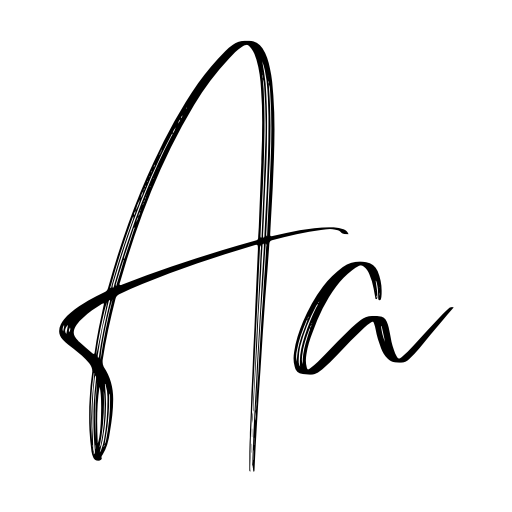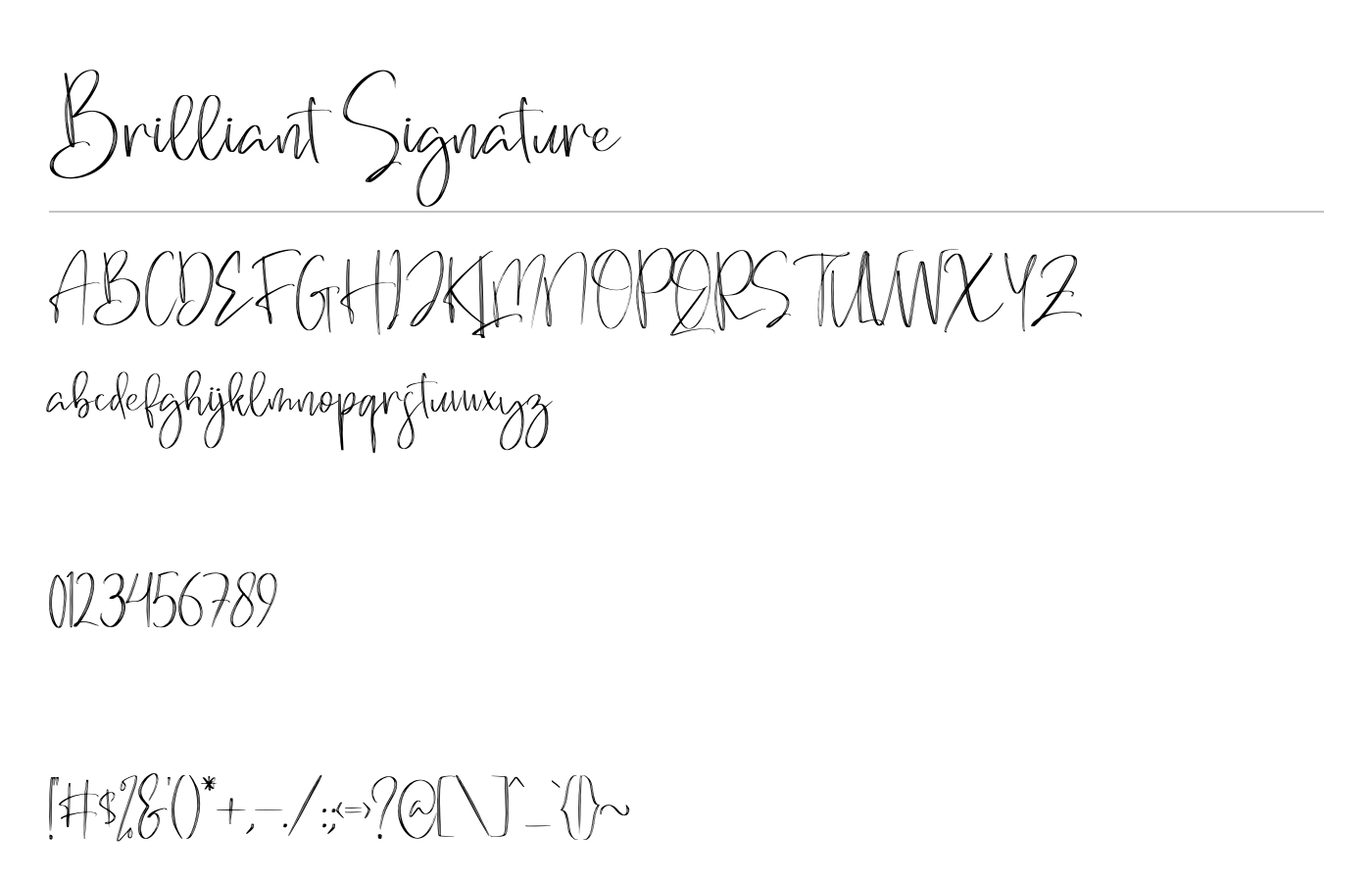
Brilliant Signature is an elegant, handwritten script font with a light, airy feel and delicate, flowing strokes that mimic natural handwriting. Its tall, narrow letterforms and casual yet refined style make it perfect for personal branding, invitations, and creative logos where a sophisticated, approachable look is desired. This font shines in uses that require a touch of personality and elegance without overwhelming the design.
Brilliant Signature Font